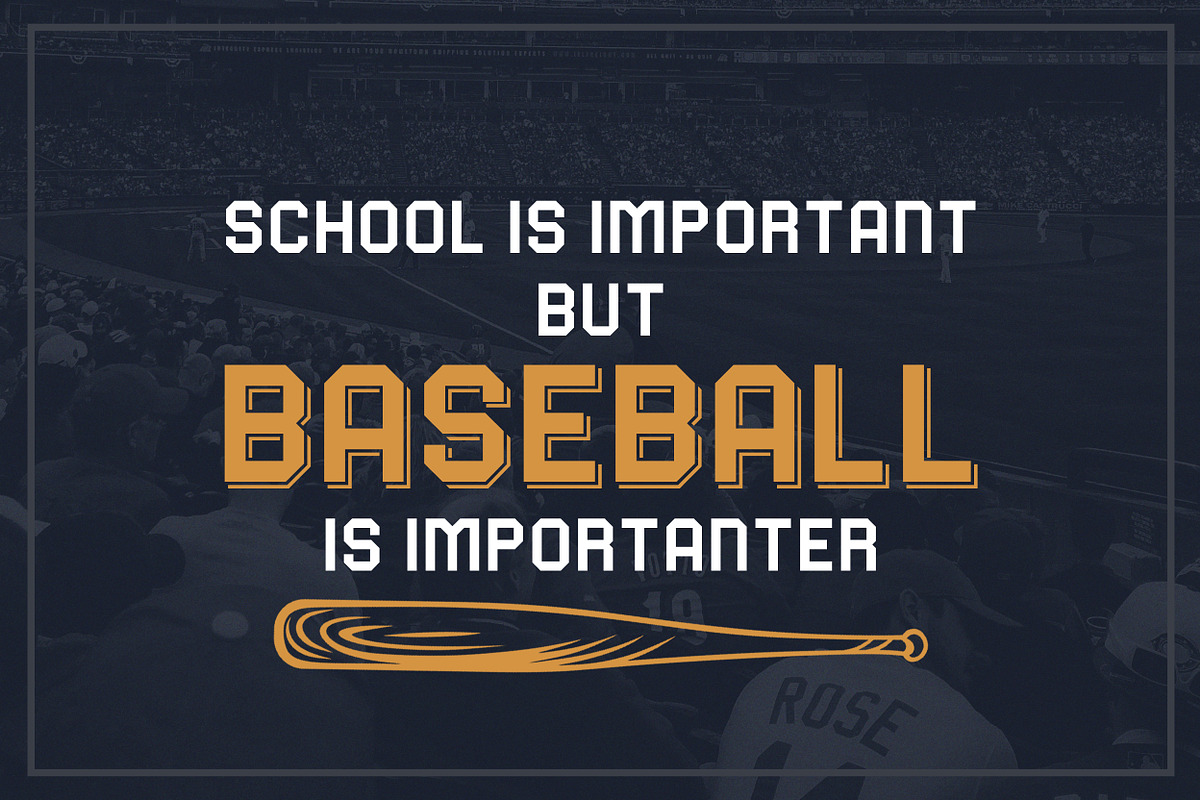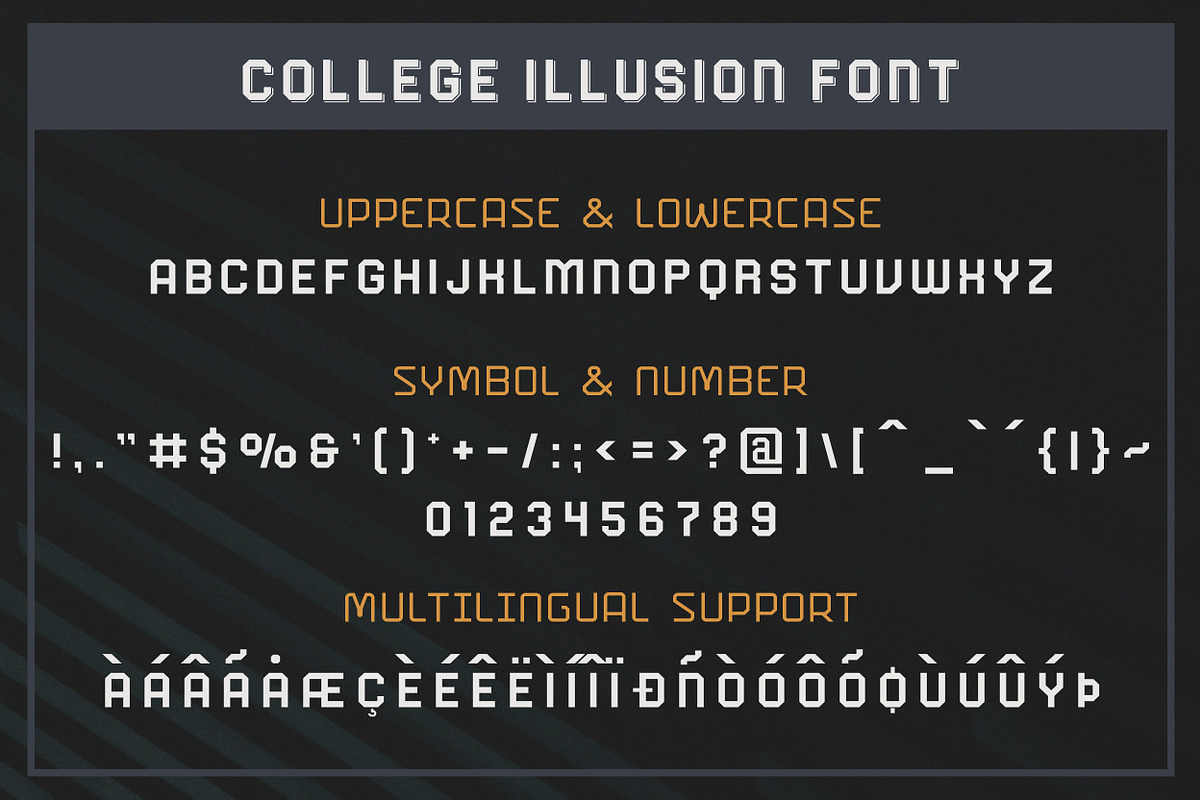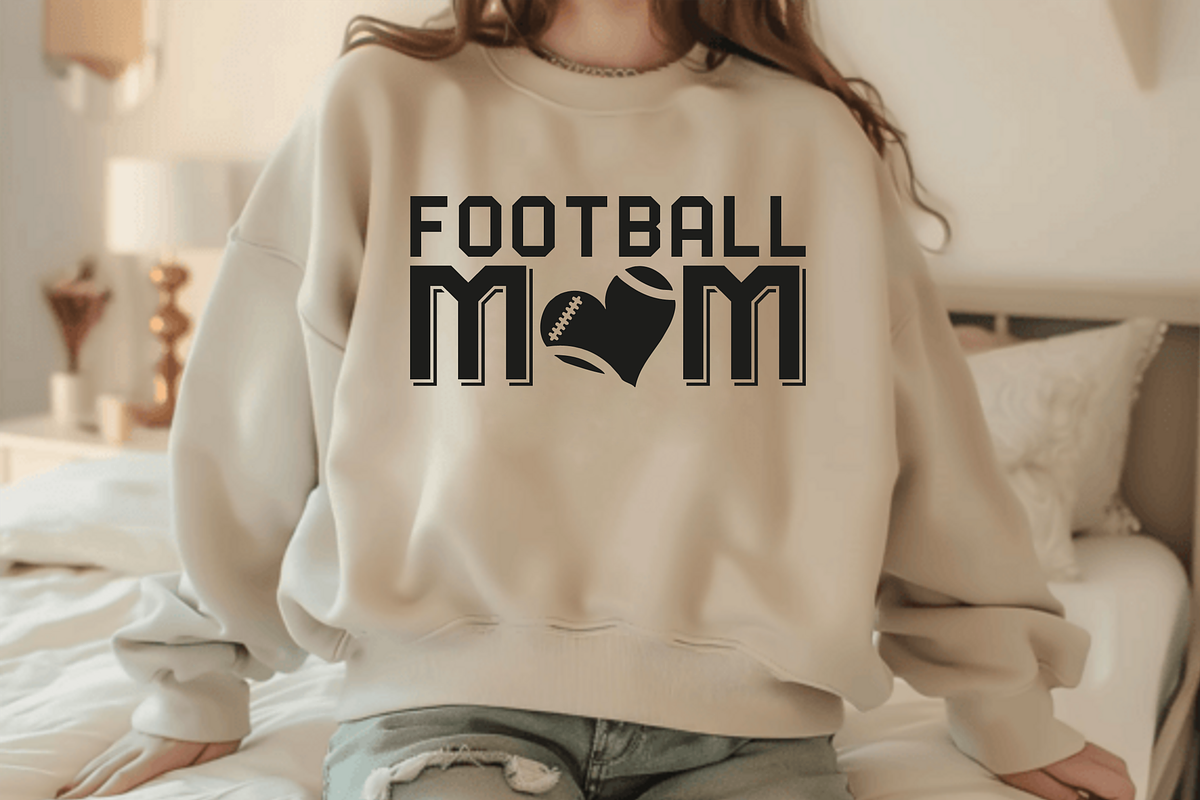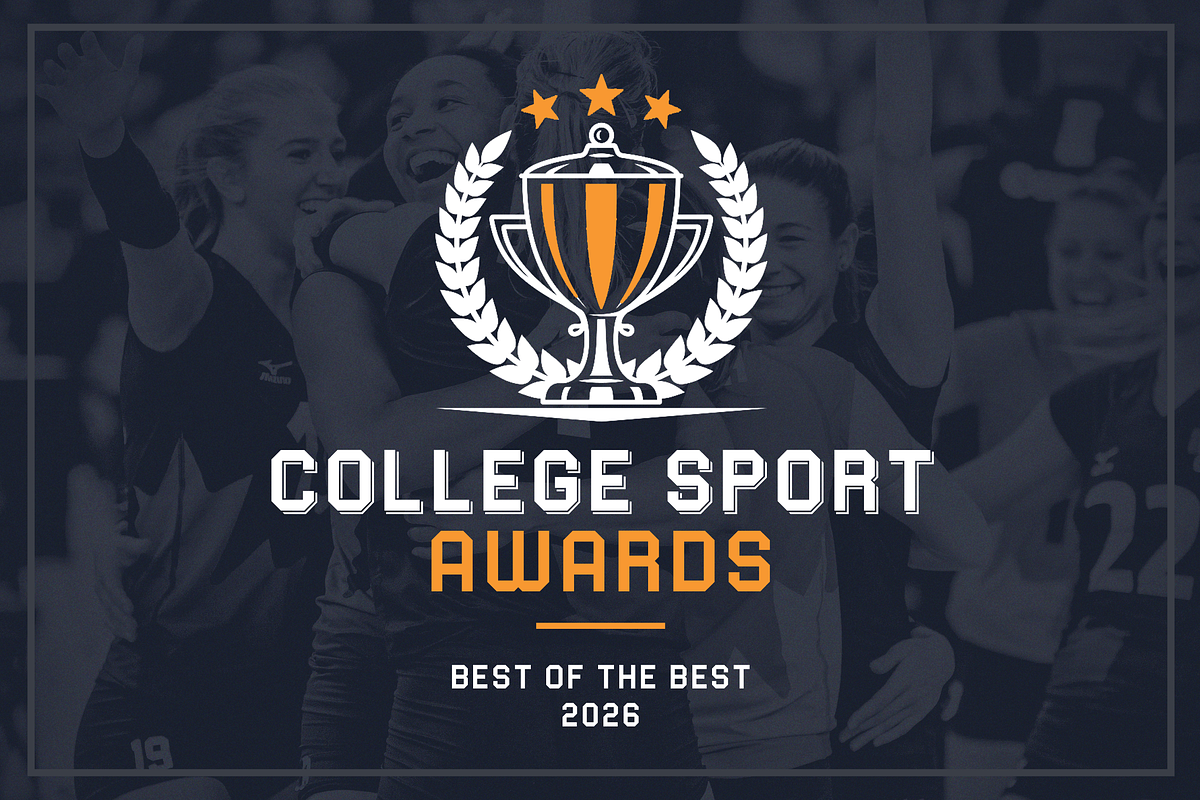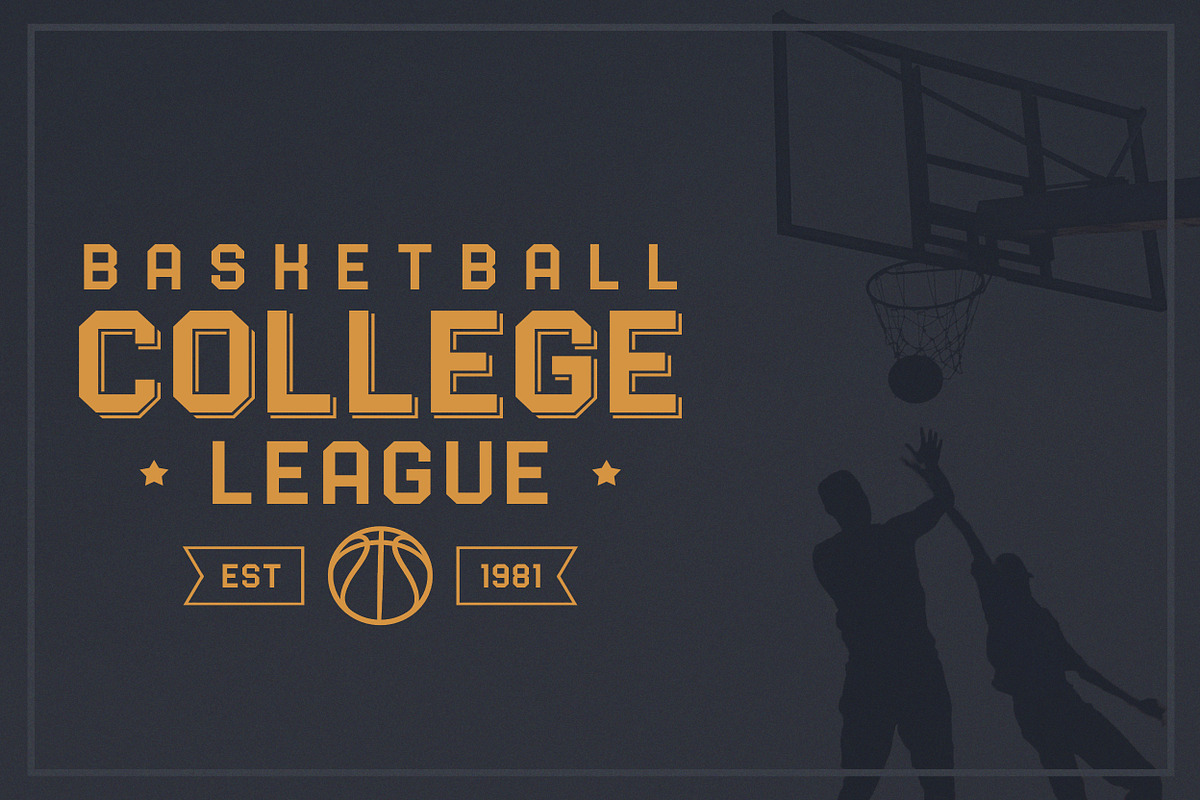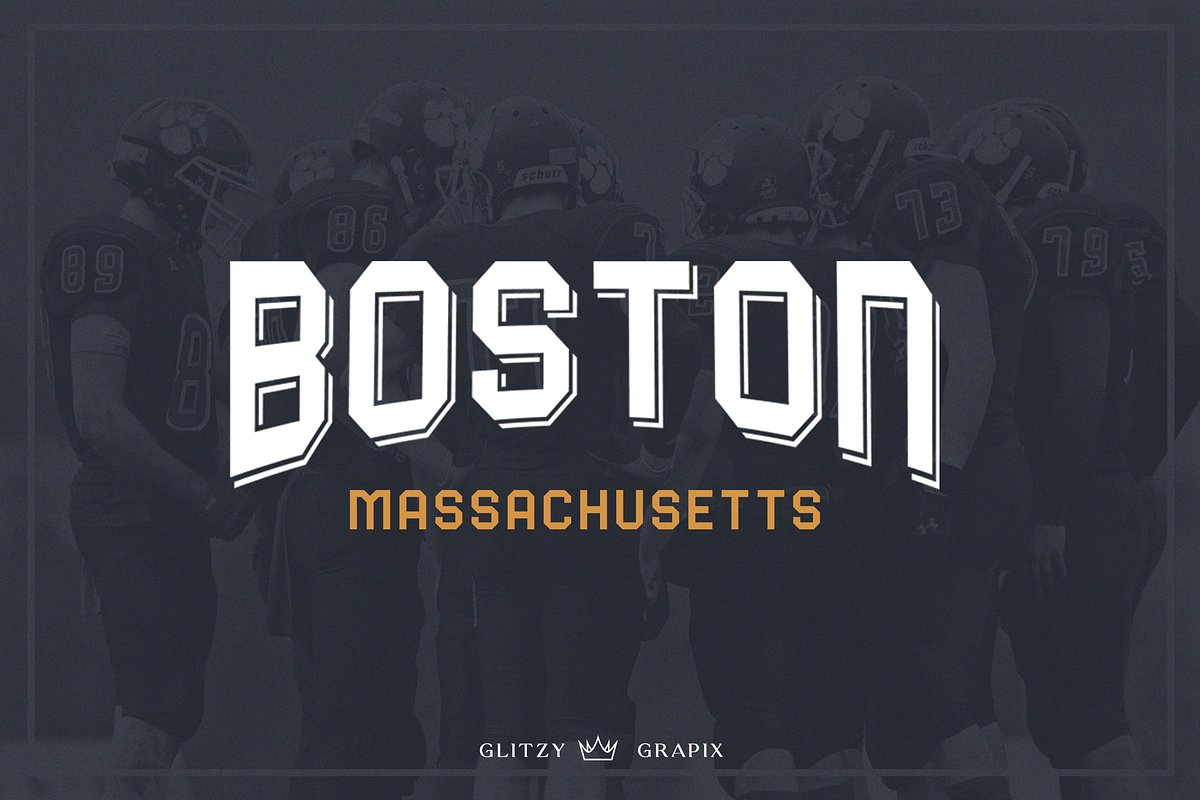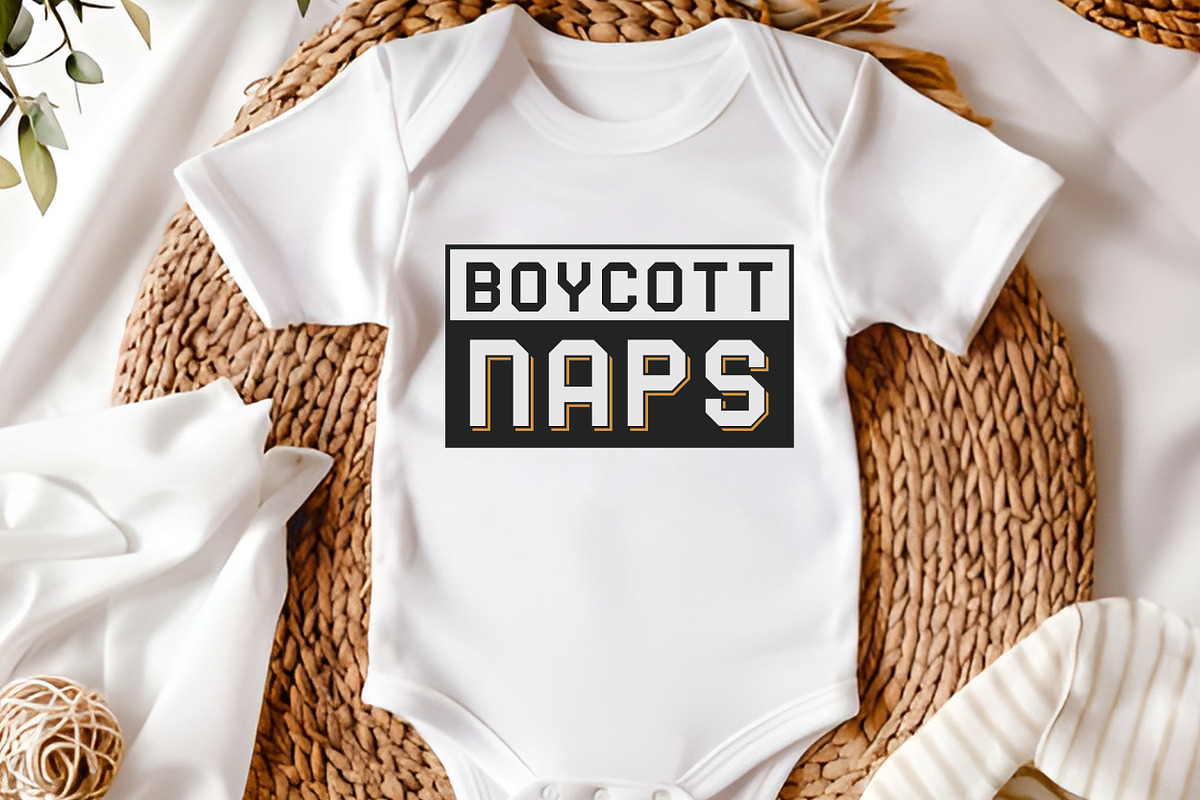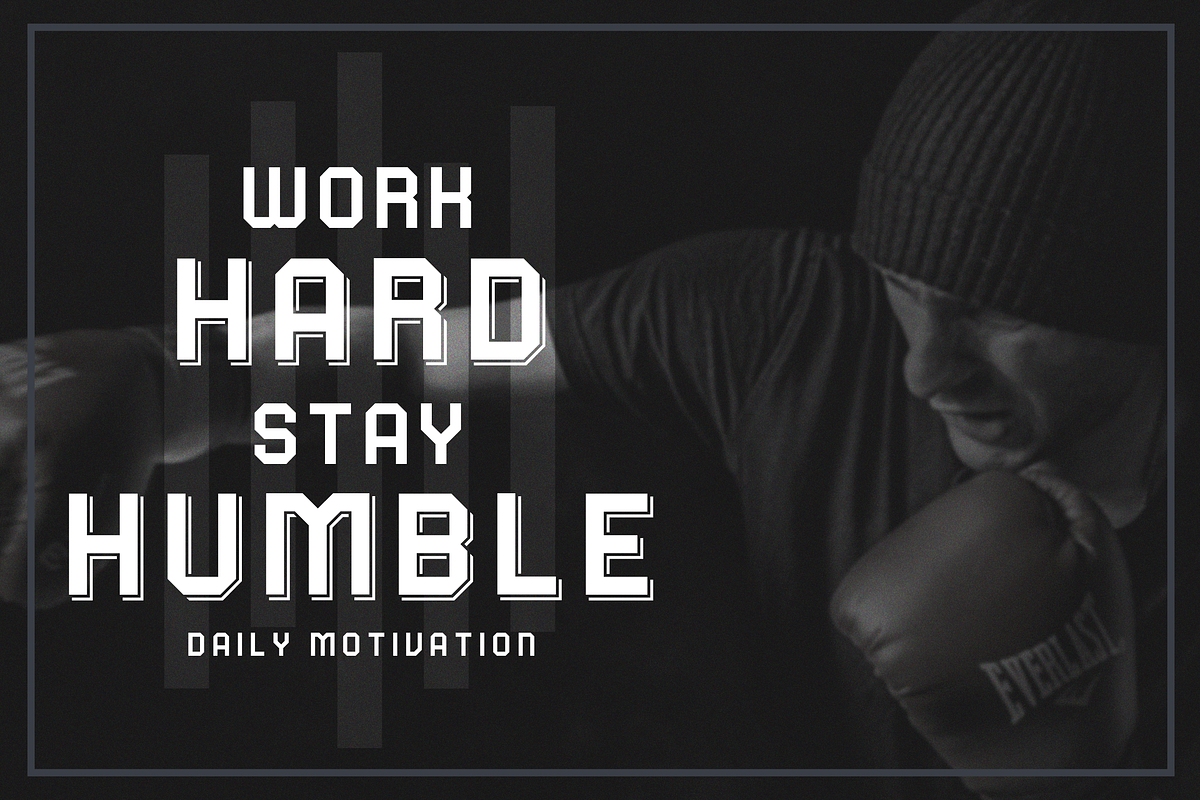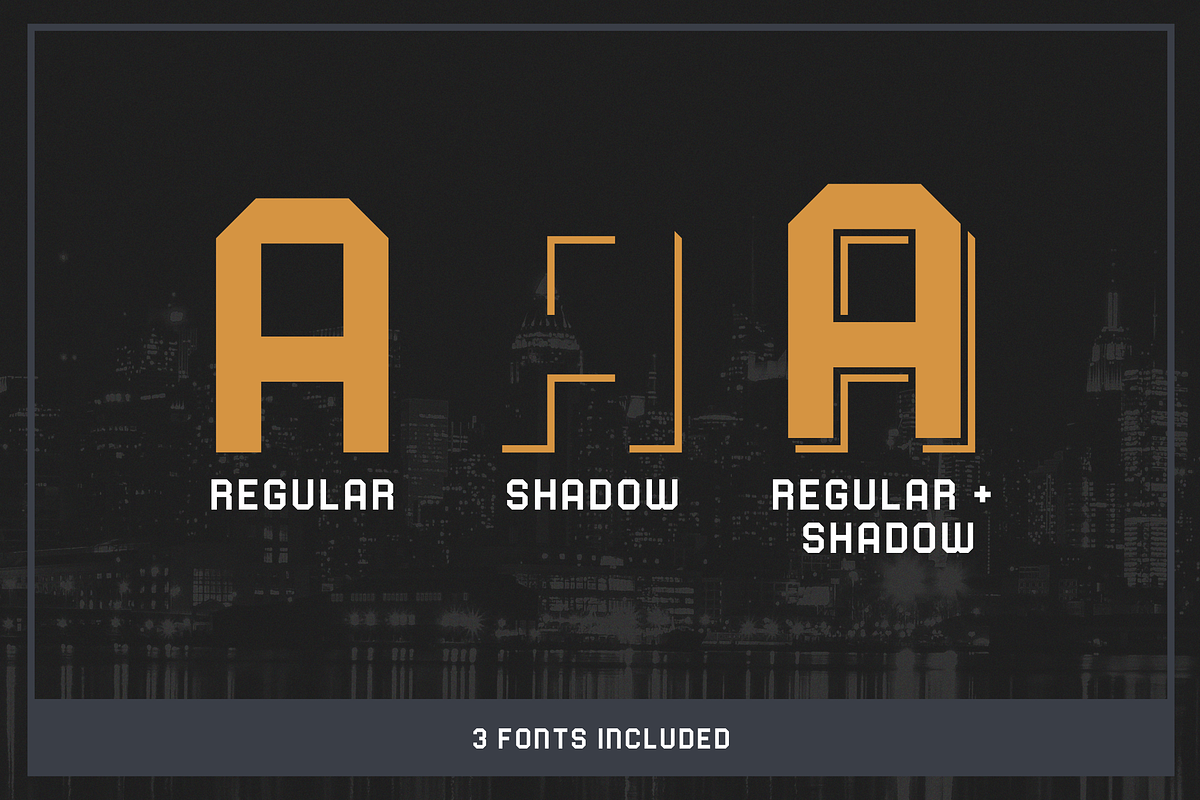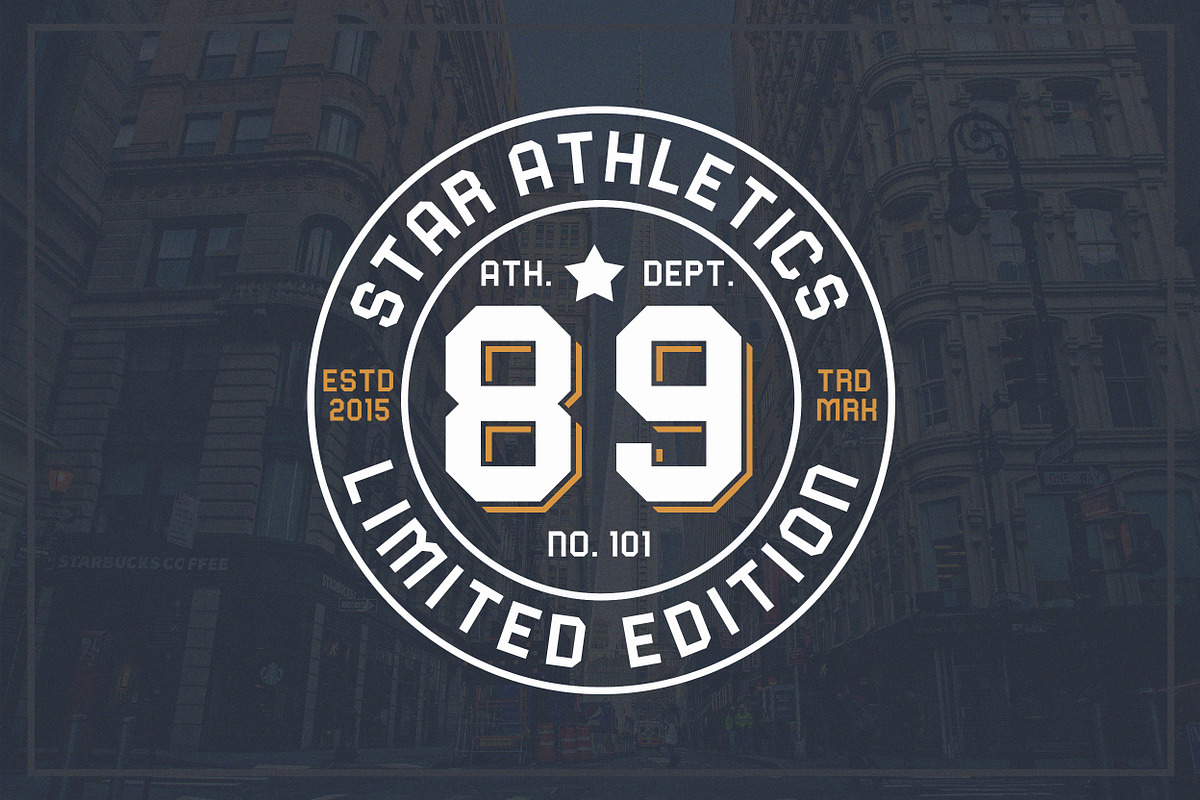
College Illusion Display Typeface
Elevate your college-themed designs with the dynamic "College Illusion" font, now with an eye-catching shadow effect! Whether you’re crafting logos, t-shirt designs, team jerseys, posters, or other standout projects, this versatile font has you covered.
With its crisp lines and timeless aesthetic, "College League" is the perfect choice for projects that celebrate college spirit, from sports teams to academic institutions.